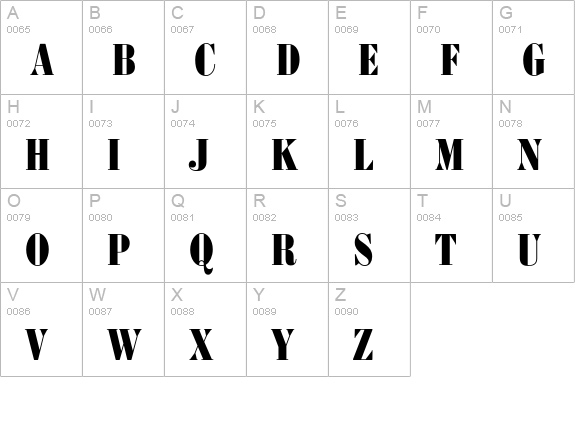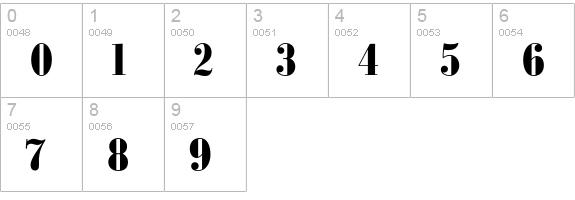
BodoniFB-BoldCondensed Font Details
BodoniFB-BoldCondensed is a striking and modern typeface that exudes elegance and sophistication. With its bold and condensed design, this font is perfect for making a bold statement in your designs. The sharp serifs and clean lines give BodoniFB-BoldCondensed a timeless appeal that is sure to stand out. What makes this font even more appealing is that it is available for free download at FontsMarket.com. Whether you're working on a branding project, editorial design, or any other creative endeavor, BodoniFB-BoldCondensed is a versatile choice that will elevate your work to the next level. Download this font today and add a touch of class to your designs.